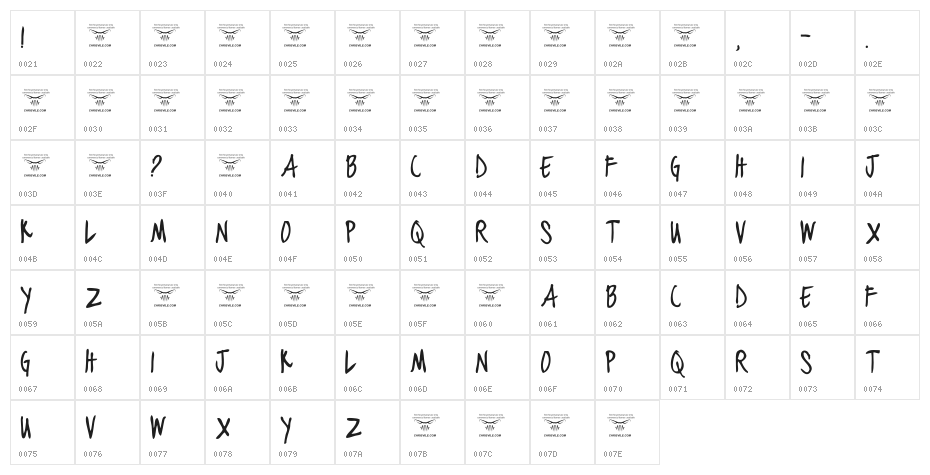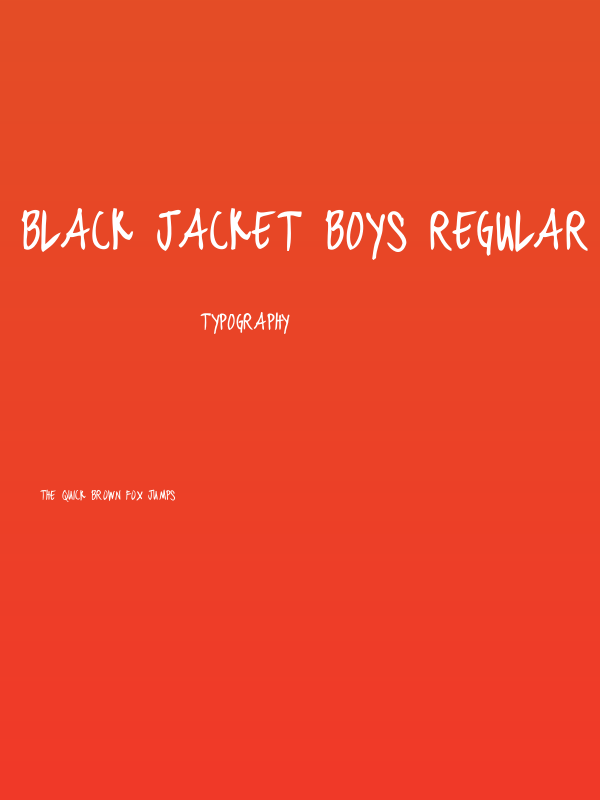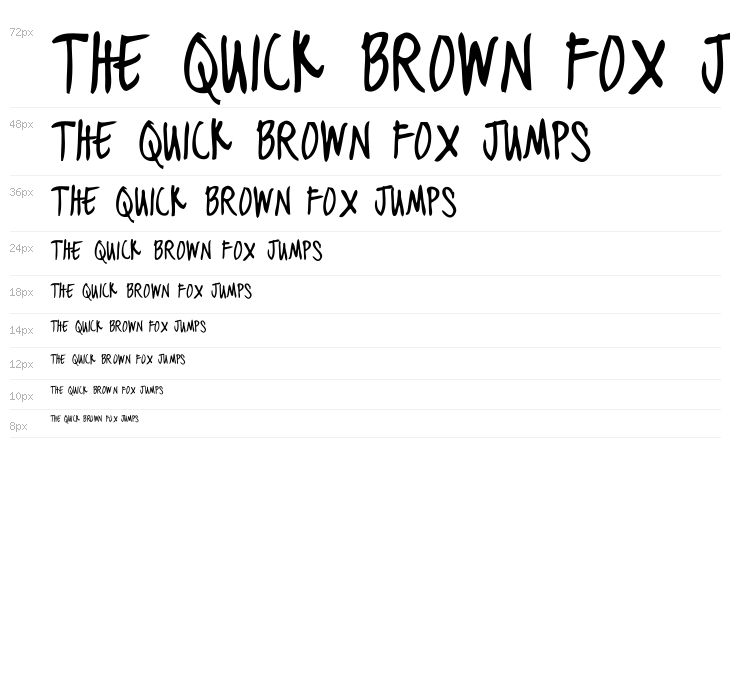
black jacket boys Regular Font
black jacket boys Regular Description
This font exhibits a bold, handwritten style with a playful and energetic character. The letters are slightly slanted, giving a dynamic and informal appearance. The strokes are thick and consistent, providing a strong visual impact. The uppercase and lowercase letters maintain a cohesive look, with rounded edges and a casual flair. The numbers and special characters follow the same design principles, ensuring uniformity across all glyphs. This font is ideal for projects that require a personal touch or a creative, lively aesthetic.
Proposed ProjectsIdeal for greeting cards, posters, social media graphics, and branding projects that require a personal and lively touch.